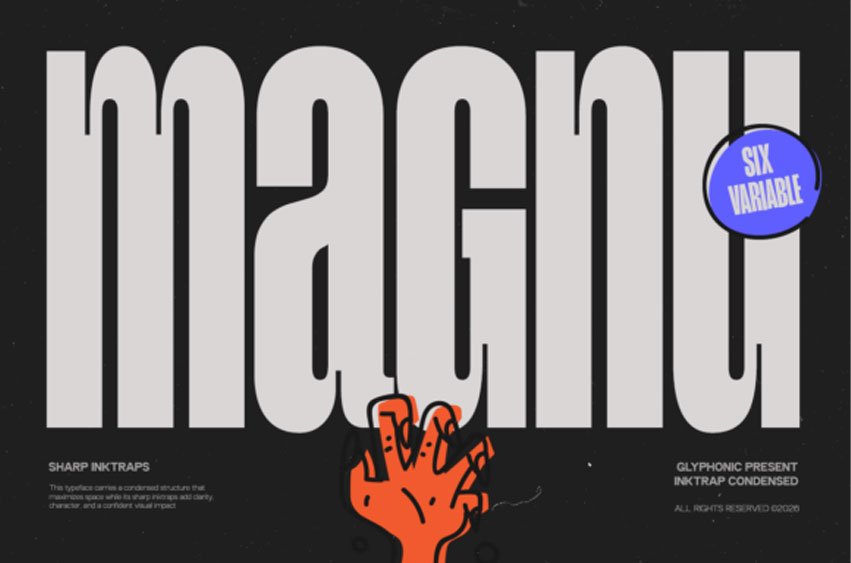
Magnu Font Make a monumental impact with Magnu, a condensed display typeface designed for maximum spatial efficiency. Magnu is defined by its ultra-tight tracking and exaggerated, sharp inktraps that add an aggressive clarity to every character.
This font is a “Six Variable” powerhouse, offering a confident visual weight that feels rooted in modern industrial design and brutalist architecture.
Best Used For: Brutalist web design, high-impact street posters, technical branding, and experimental editorial layouts.